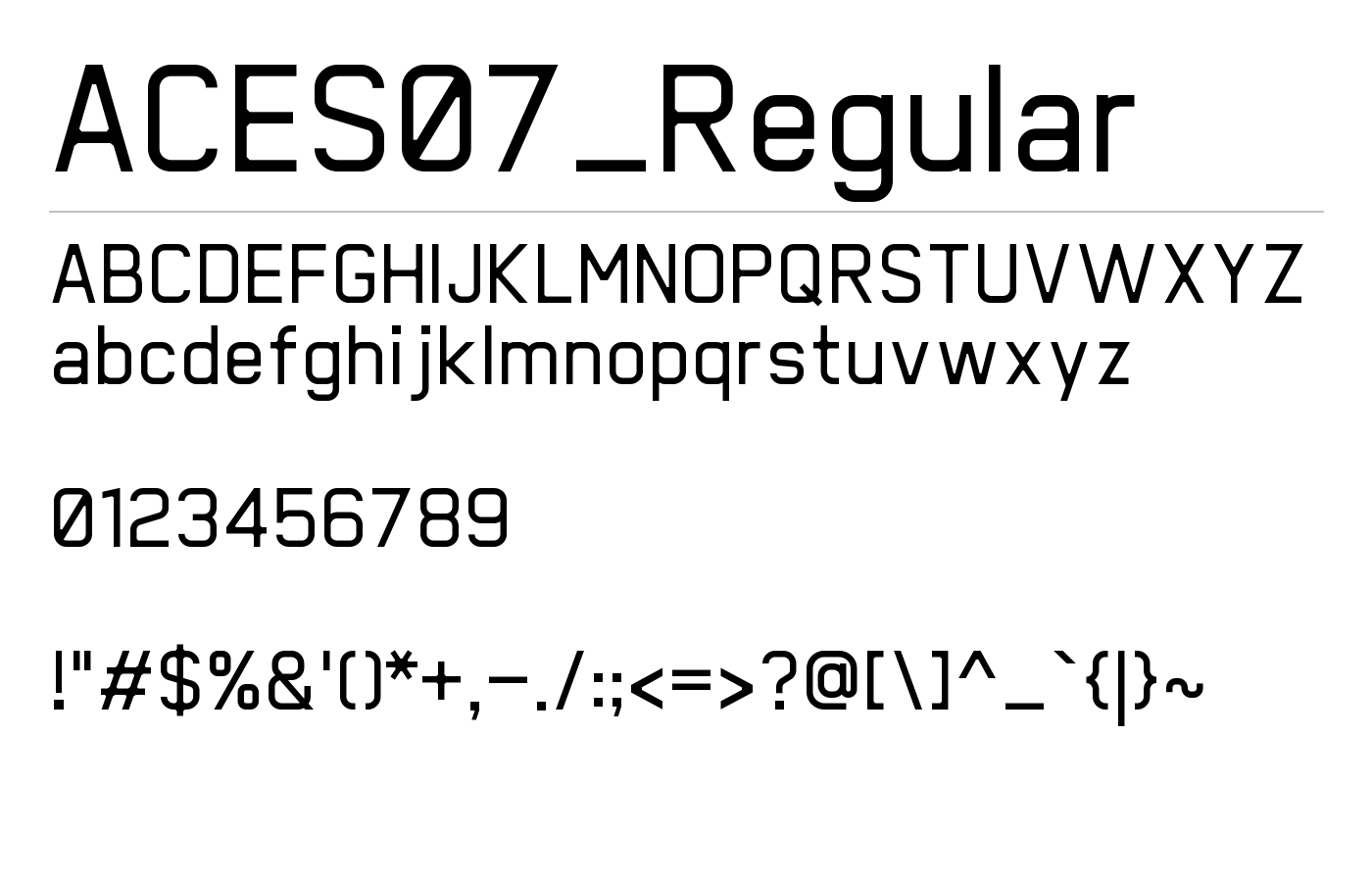
ACES07_Regular is a modern sans serif font with a clean, technical appearance characterized by its narrow width and uniform stroke weight. Its tall x-height and simple, geometric letterforms with squared terminals give it a precise and functional feel, making it ideal for digital interfaces, technical documents, and branding that require a sleek, contemporary look. This font works well in headlines and display text where clarity and a modern, no-nonsense aesthetic are essential.
| Font family | ACES07_Regular Font |